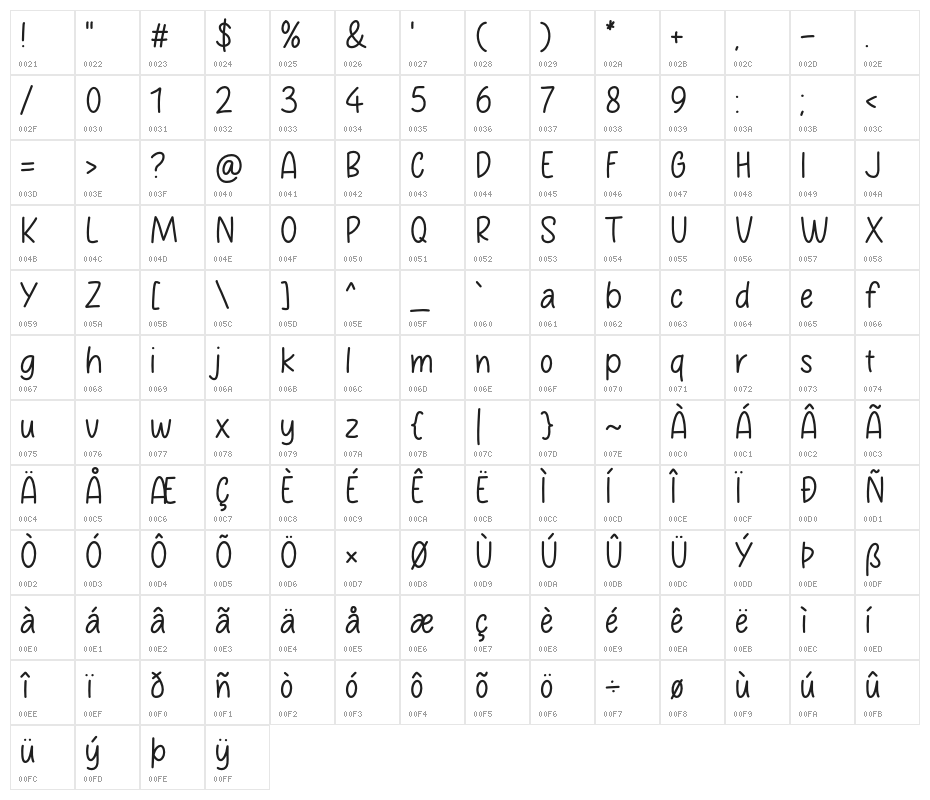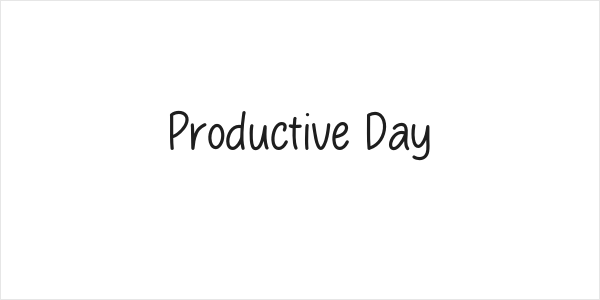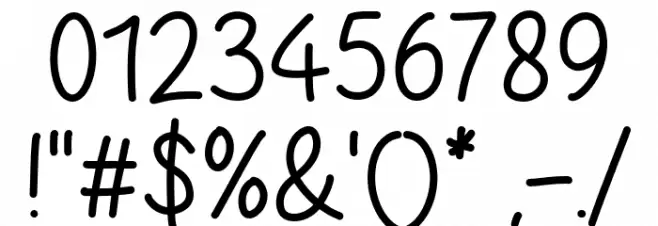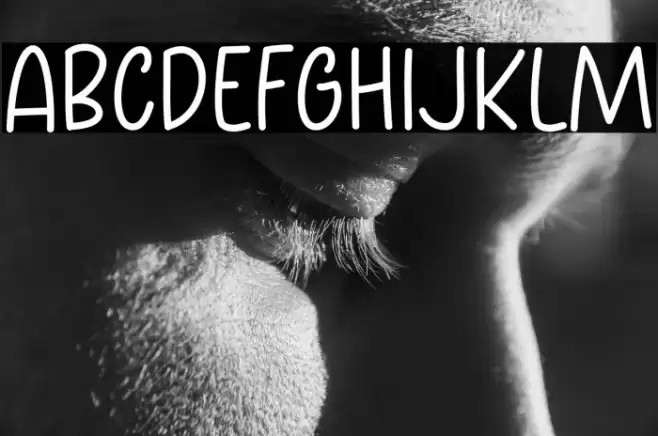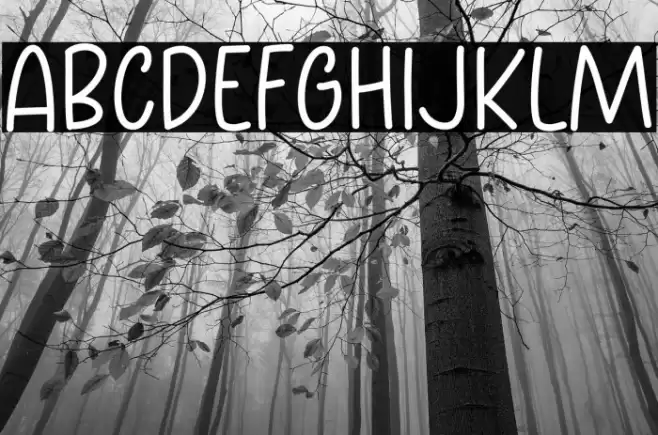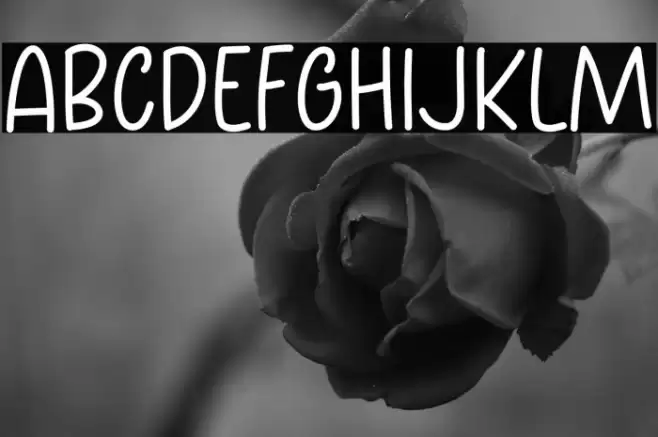
Productive Day Font
Productive Day Description
This font features a playful and casual handwritten style, characterized by its smooth curves and slightly irregular shapes that give it a friendly and approachable appearance. The letters are well-spaced, ensuring readability while maintaining a relaxed aesthetic. The strokes are consistent in thickness, offering a uniform look across all characters. This font is versatile, suitable for both digital and print media, and can add a personal touch to any project. Its informal style makes it ideal for creative and fun applications.
| Use Case | Headlines, Invitations, Casual Branding |
| Proposed Projects | Ideal for greeting cards, invitations, children's books, and casual branding. |